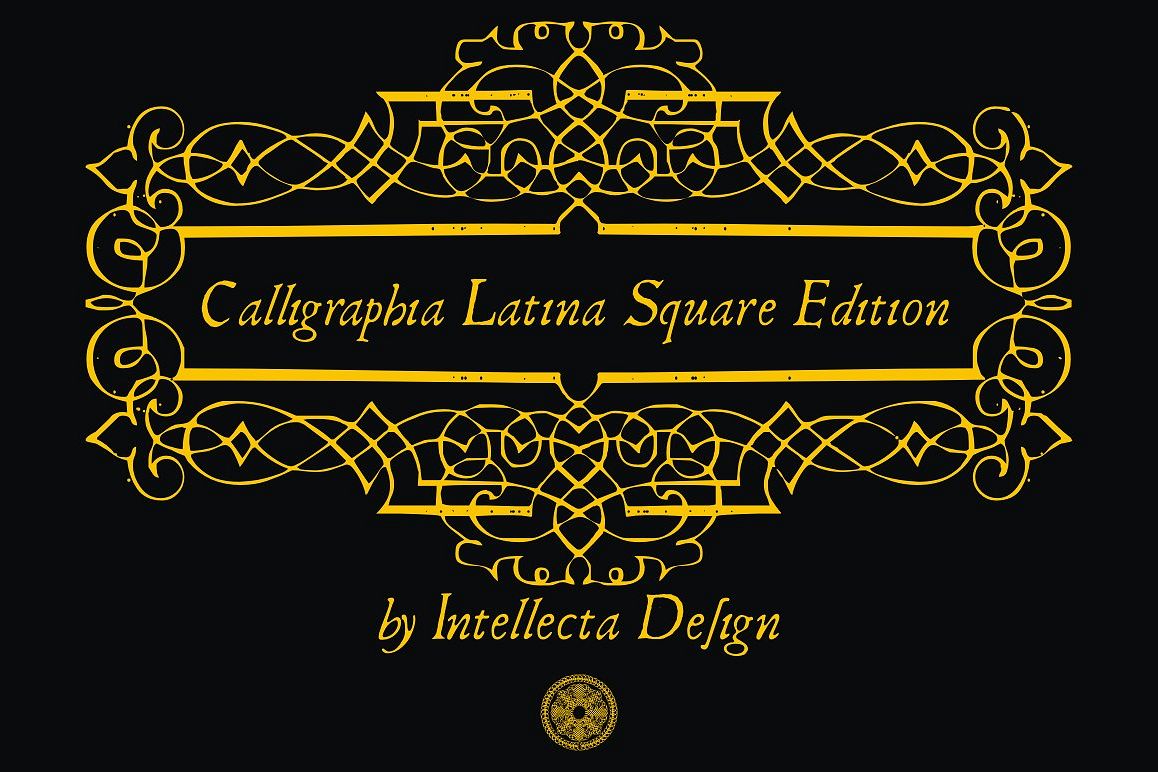
Calligraphia Latina Square Edition
Calligraphia Latina Square Edition is a decorative dingbat font of many flourish and border items in a victorian-like style.One of the most successful new ornament fonts is CalligraphiaLatina. It is part of a trend that's been quite popular lately: messed-up calligraphy. You can dirty up (or deconstruct) gracious classic-looking curves in many ways: using a variety of software filters; by superimposition: or even by hand. The result works well when you want that worn-down grungy look. CalligraphiaLatina is a worldwide best-seller from IntellectaDesign, a family of many fonts. Calligraphia Latina Square Edition is one of most popular in this family